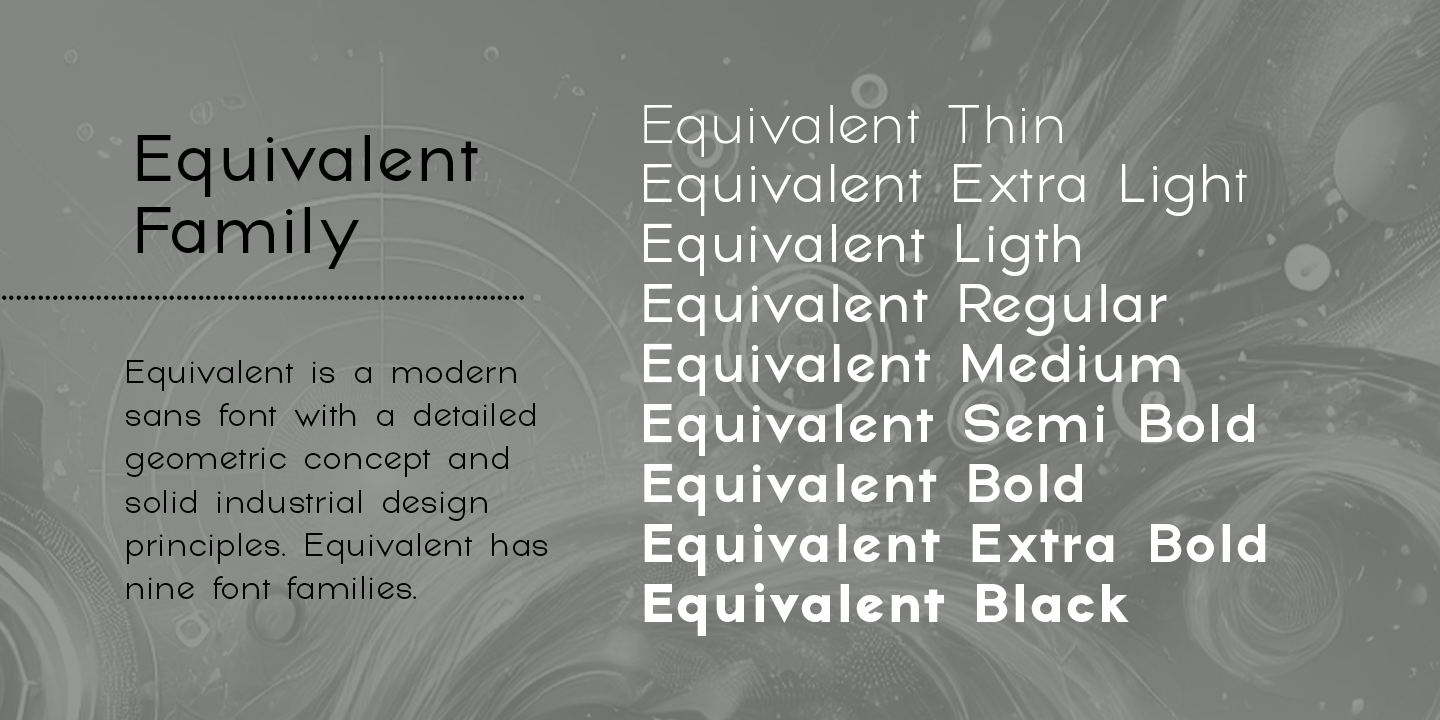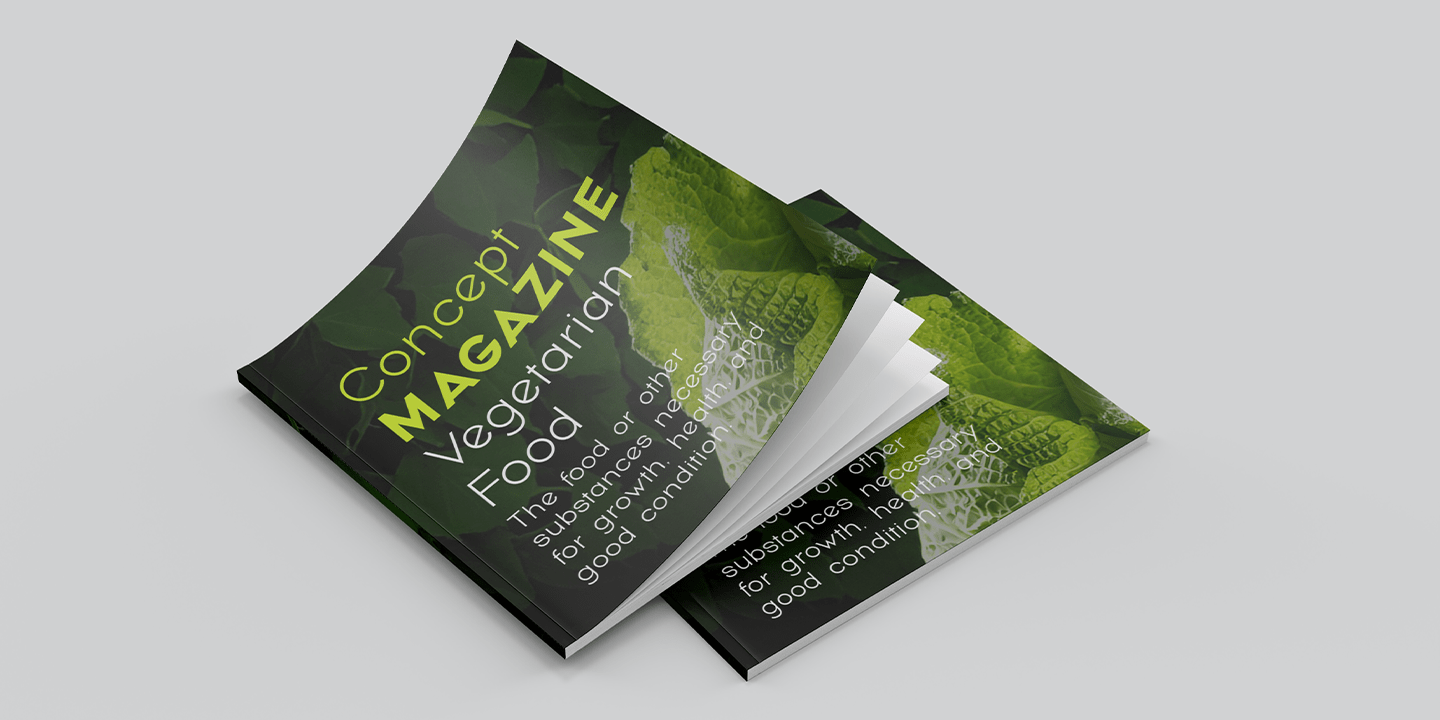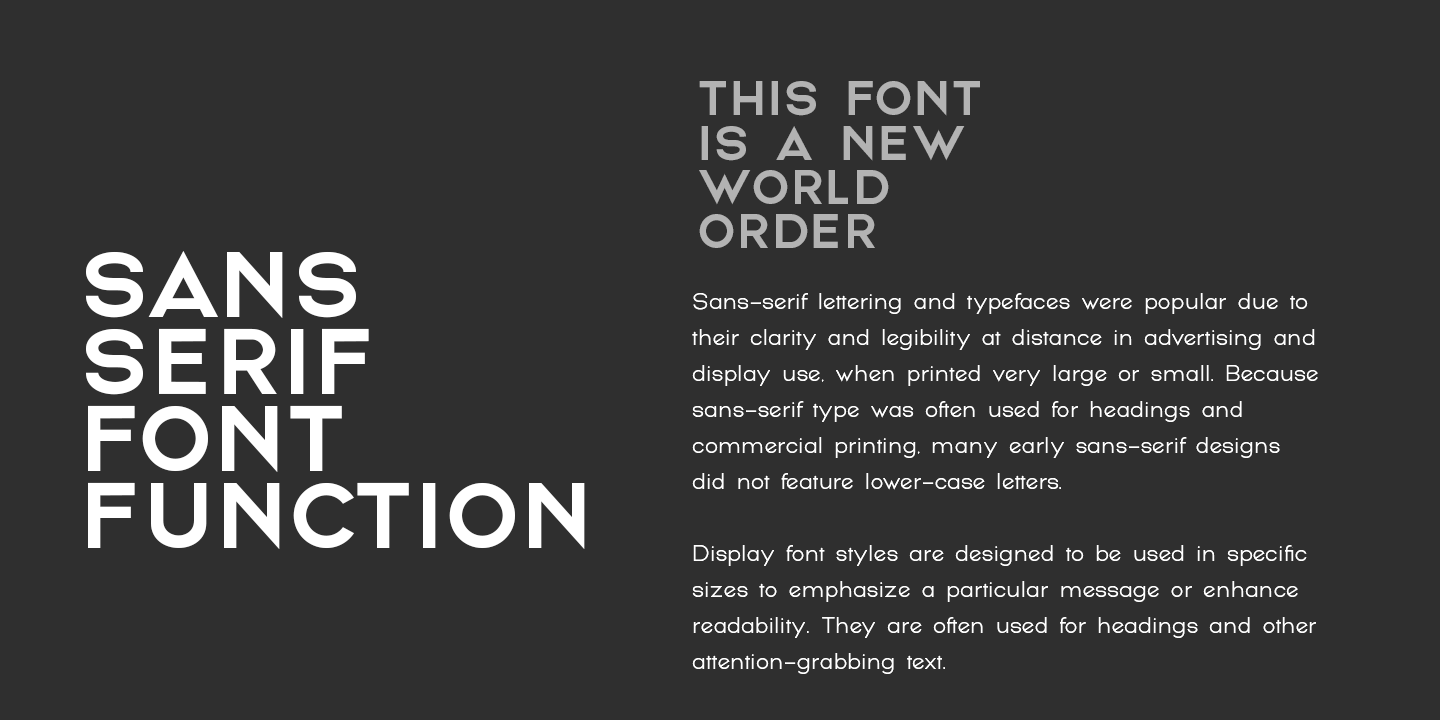
Equivalent
Font Family by Groen Studio
Equivalent is a modern sans serif font with a detailed geometric concept and solid industrial design principles. Equivalent has nine font families. so, Equivalent is a variation font with a normal style, comes in 9 straight weights.
Equivalent is Sans-serif lettering and typefaces are popular due to their clarity and legibility at distance in advertising and display use, both when printed very large or small.